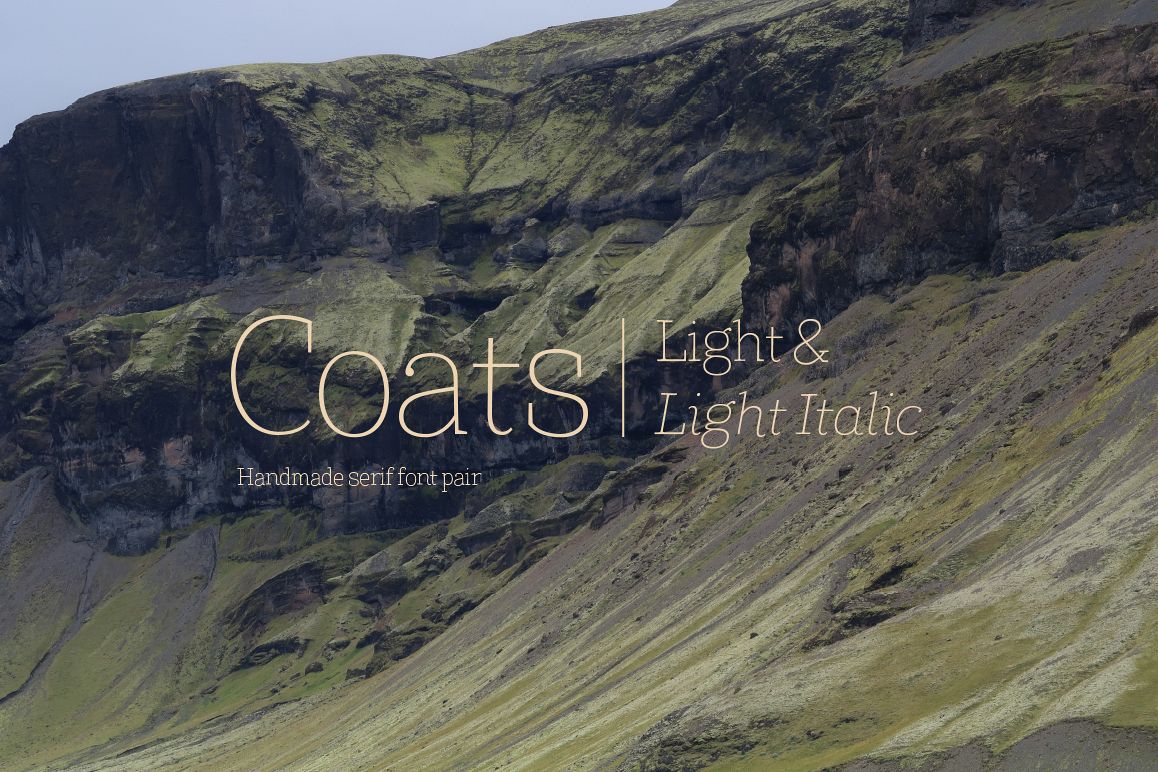
Coats Light & Coats Light Italic
Coats Ligh
Coats Light Italic
We are glad to present you the handmade antiqua with a lively nature - Coats Light & Coats Light Italic.
Sometimes we only need a few faces to make our creative ideas come to live. For this specific purpose we've split some of our popular font families into all-sufficient font pairs.
We've created a hand written hand-made antiqua with a lively character for short emotional inscriptions. Coats will warm you up in a cold day and add a little kindness and easiness into any layout. Lines typed with this typeface start “trembling” in long texts, so be careful and use this typeface for special occasions and in small amounts.
Imagine: on a cold day, you've come from a refreshing frosty walk back home, and were rewarded with a cup of hot cocoa with marshmallows on top. We call this feeling the Coats effect. Add to your collection a unique serif that works perfectly in the contemporary digital age.